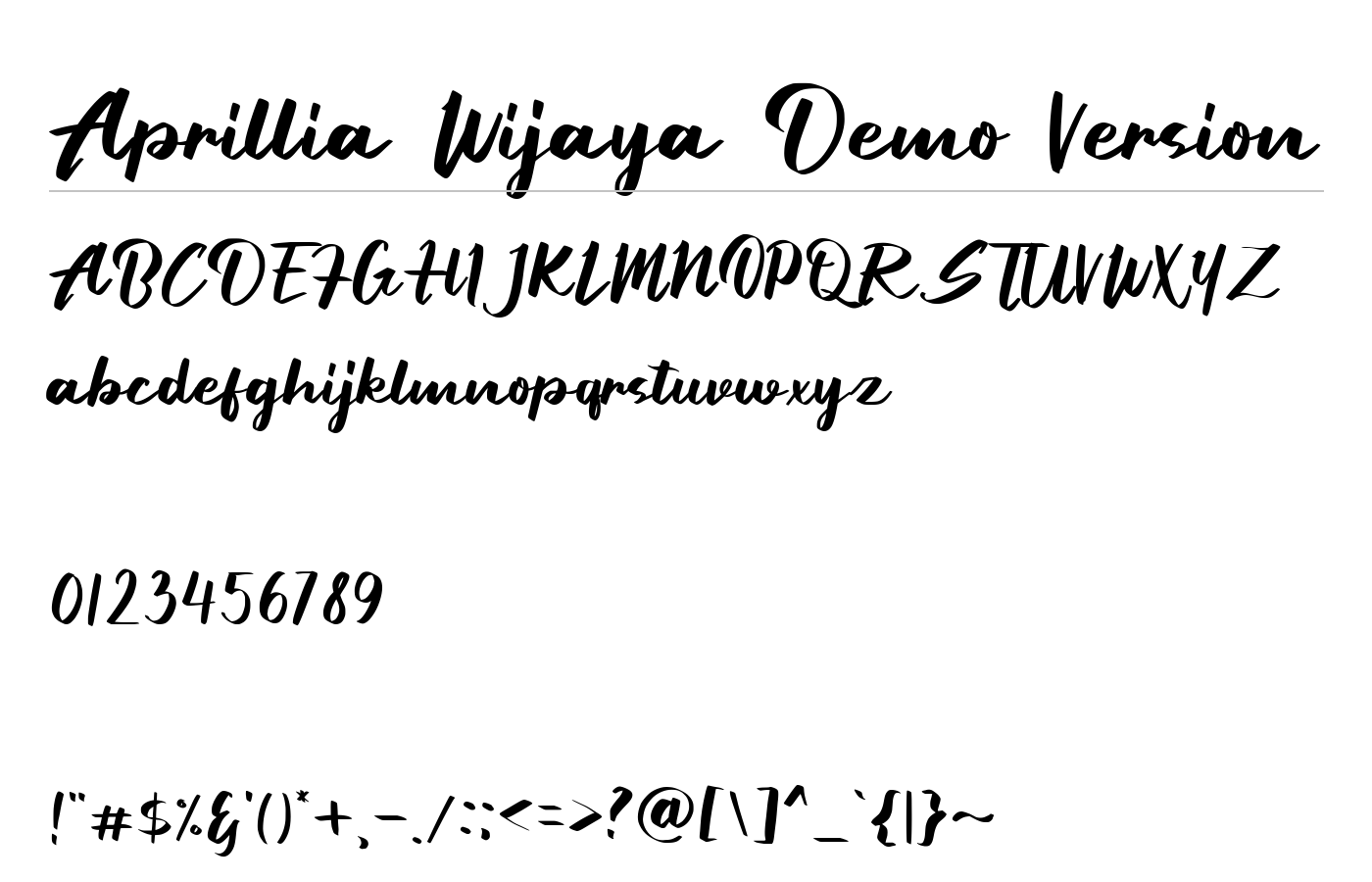
Aprillia Wijaya Demo Version is a stylish script font with a smooth, brush-like flow that blends modern elegance with a casual, handwritten feel. It features medium weight strokes with slight variation, giving it a lively and approachable character, ideal for creative branding, invitations, and eye-catching headlines. This font works beautifully where a personal, artistic touch is desired, adding warmth and personality to both digital and print designs.
Aprillia Wijaya Demo Version Font
About Aprillia Wijaya Demo Version Font